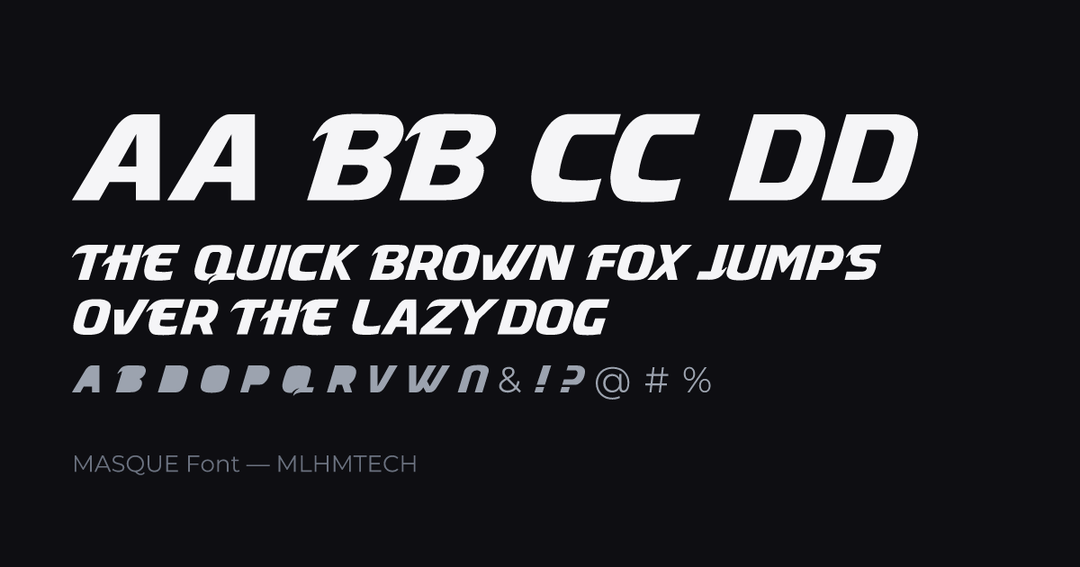
MASQUE Font
MASQUE is a bold, modern display font that adds a strong, creative touch to any design. Perfect for headlines, logos, and branding.
MASQUE is a distinctive display typeface with a bold, contemporary look. Its strong letterforms and unique character shapes make it ideal for grabbing attention in headlines, posters, and branding materials. The font is provided in TTF format, ensuring compatibility with most design software.